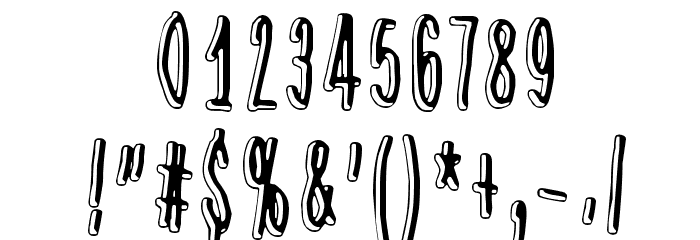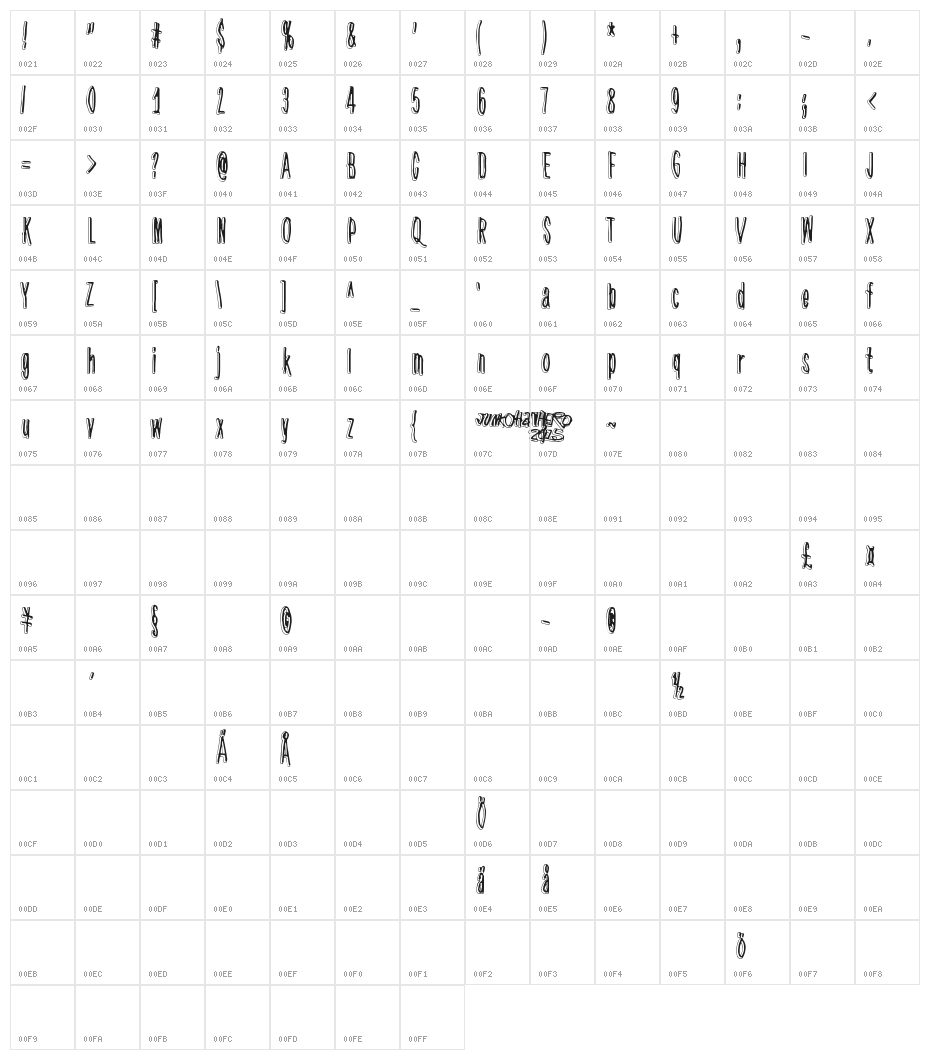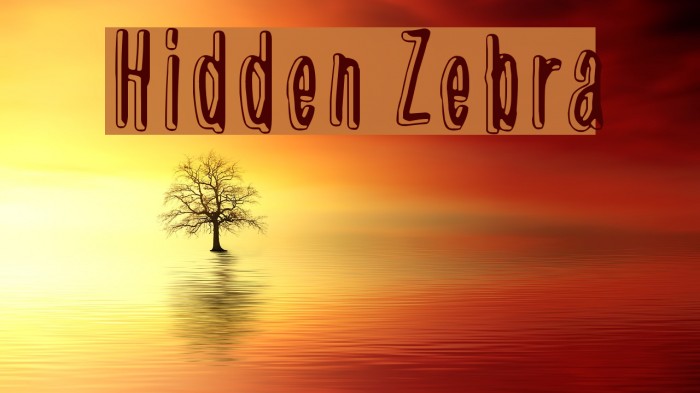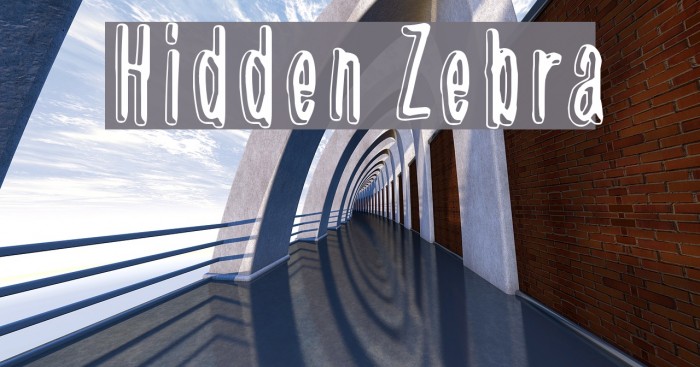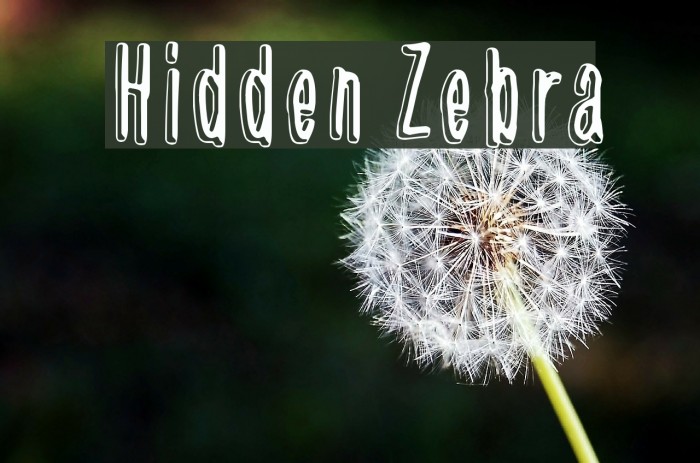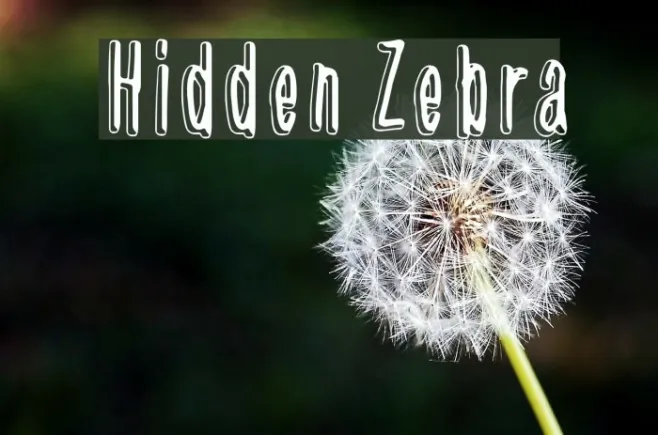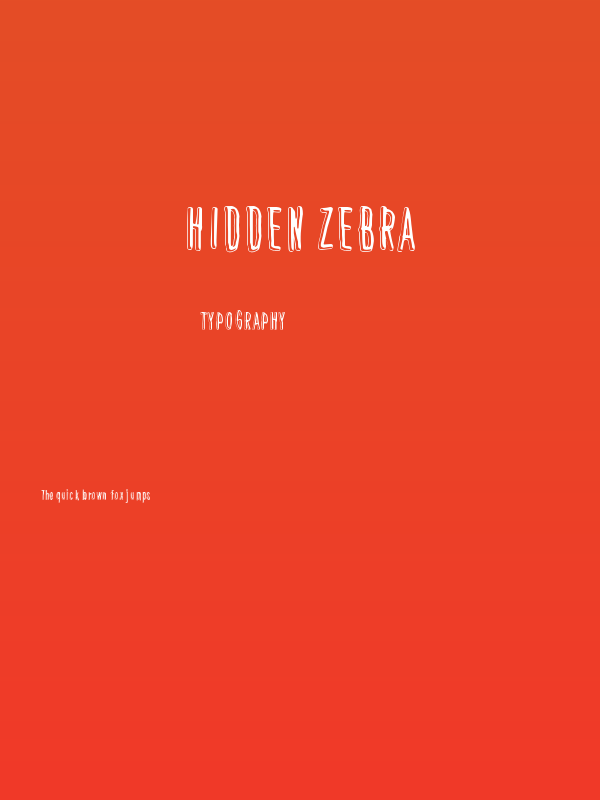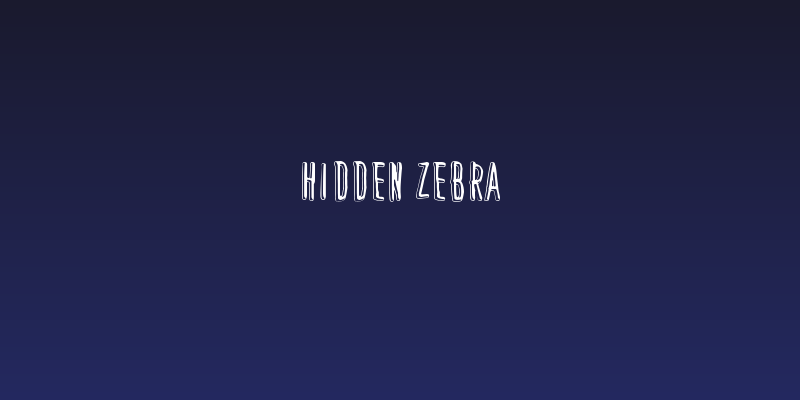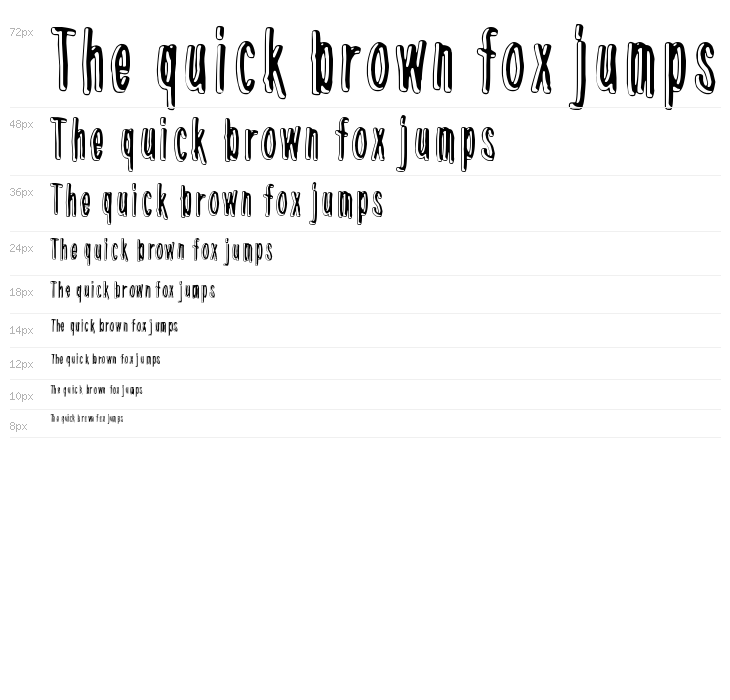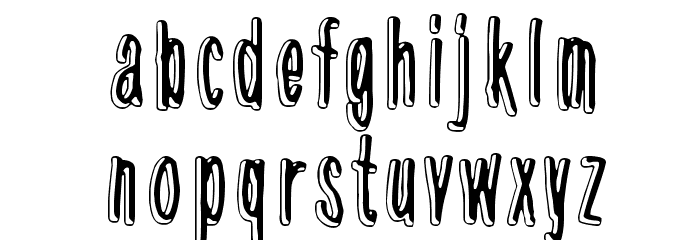
Hidden Zebra Font
Hidden Zebra Description
This font features a playful and quirky design with a hand-drawn aesthetic. The characters are outlined with a bold, uneven stroke that gives them a dynamic and lively appearance. Each letter has a unique, slightly irregular shape, adding to the whimsical feel. The uppercase and lowercase letters maintain a consistent style, while the numbers and special characters complement the overall look. This font exudes a sense of fun and creativity, making it ideal for projects that require a touch of personality and flair.
| Overall Style | Playful, Artistic |
| Proposed Projects | Ideal for children's books, creative posters, playful branding, and artistic invitations. |